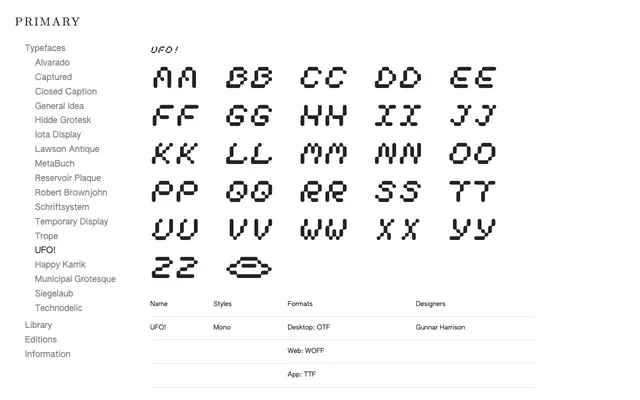
UFO!
An open-source unicase monospaced face by Gunnar Harrison, born from a happy accident and shaped by its designer's interest in extraterrestrial life.
UFO! Mono is a single-style, unicase typeface released under the SIL Open Font Licence, making it free to use, modify and redistribute. The character set covers 96 glyphs including basic Latin, lining figures, alternates, punctuation and symbols. It is the fourth OFL release from Primary Foundry and is available in OTF, WOFF and TTF formats for print, web, app and broadcast use.
Explicitly described as a monospaced unicase typeface; the single style is labelled Mono and the design treats upper and lowercase as a unified set.